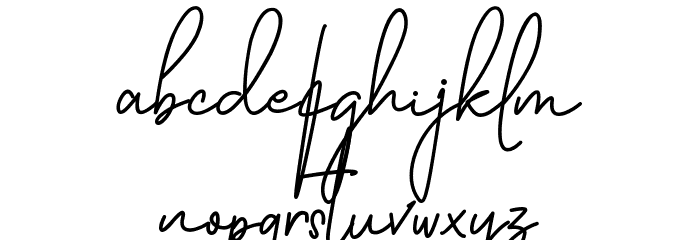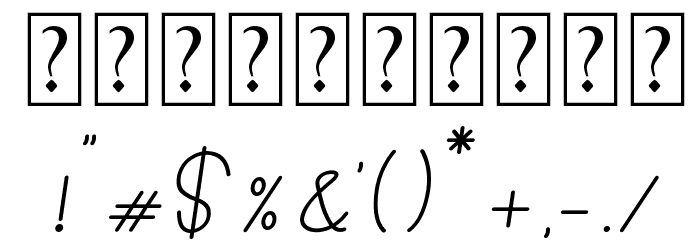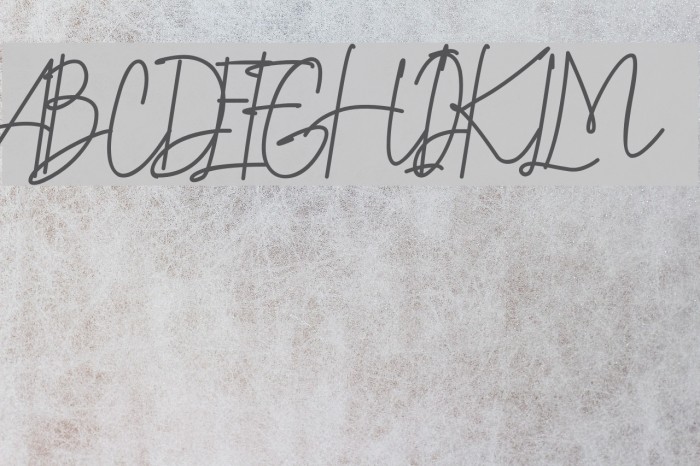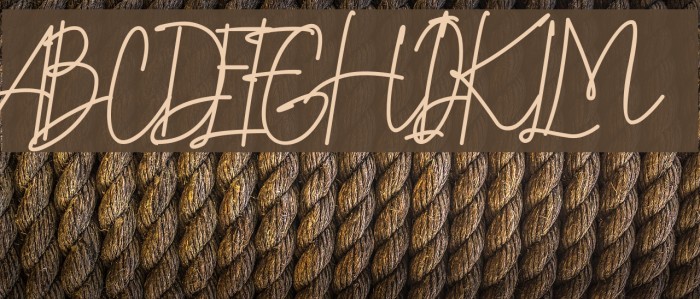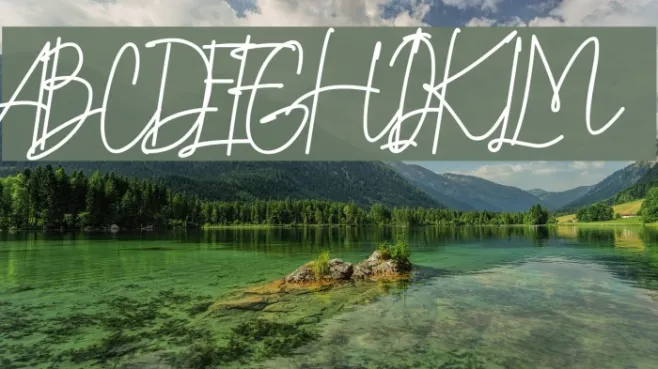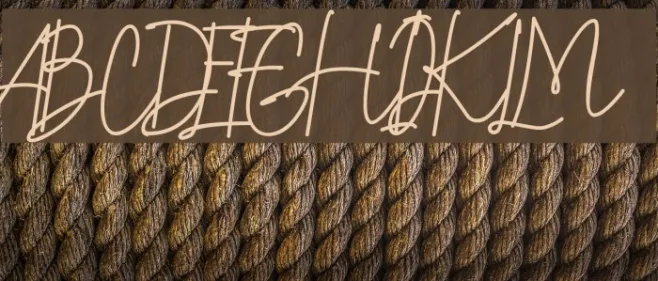
Katty Pretty 2 Font
This font features a stylish, handwritten script with a modern flair. The uppercase letters are bold and dynamic, with a fluid, cursive style that gives them a sense of movement and elegance. The lowercase letters maintain a consistent flow, offering a more delicate and refined appearance. The numerals and special characters are crafted with the same attention to detail, ensuring a cohesive look across all elements. The font's overall design is perfect for adding a personal touch to any project, with its unique and artistic strokes.
A modern, handwritten script font with elegant, flowing strokes.
- Proposed Projects: Ideal for wedding invitations, personal branding, greeting cards, and artistic projects.
- Use Case: Logos, Invitations, Personal Branding